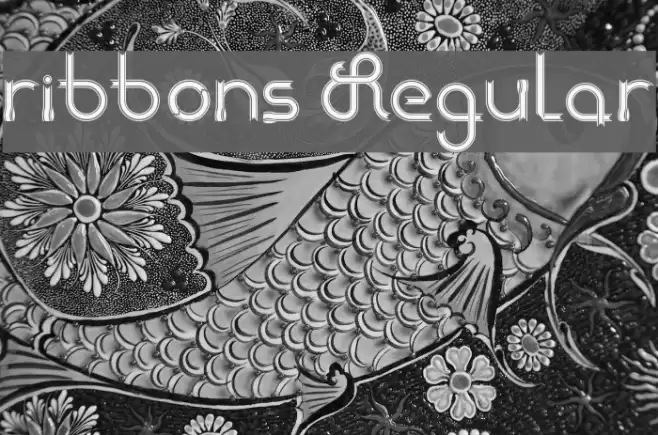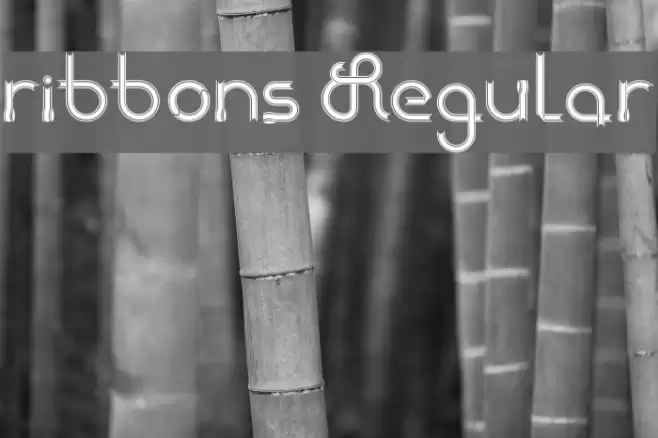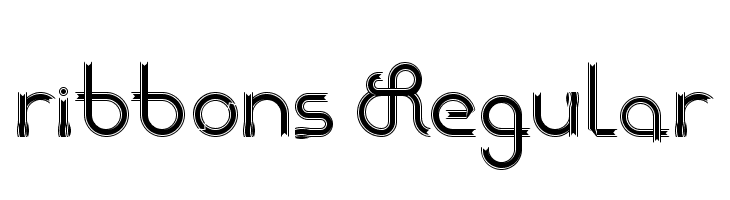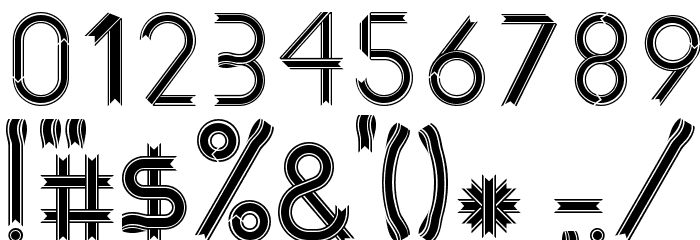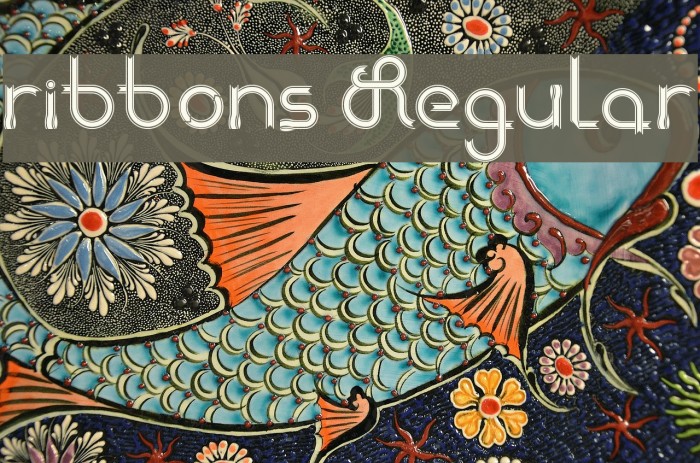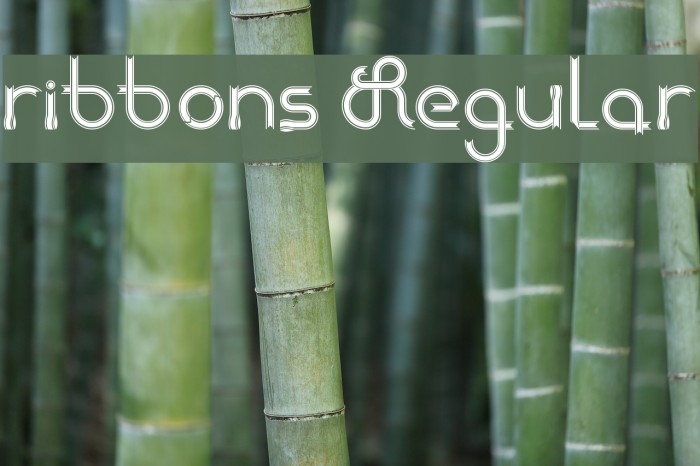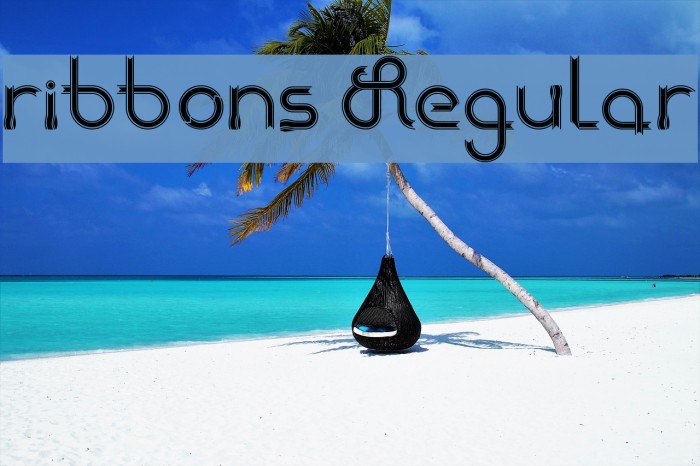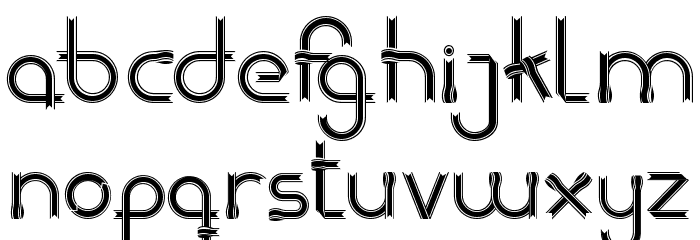
ribbons Regular Font
ribbons Regular Description
This font features a unique and intricate design, characterized by its ribbon-like elements that intertwine with each character. The uppercase and lowercase letters maintain a consistent style, with decorative lines and curves that add a sense of elegance and complexity. Numbers and special characters follow the same design principles, ensuring a cohesive look across all glyphs. The font's distinct style makes it stand out, with a modern yet artistic flair that is both eye-catching and sophisticated.
An intricate, ribbon-like decorative font with elegant curves and lines from Decorative fonts.
- Proposed Projects: Ideal for branding, event invitations, artistic posters, and decorative headings.